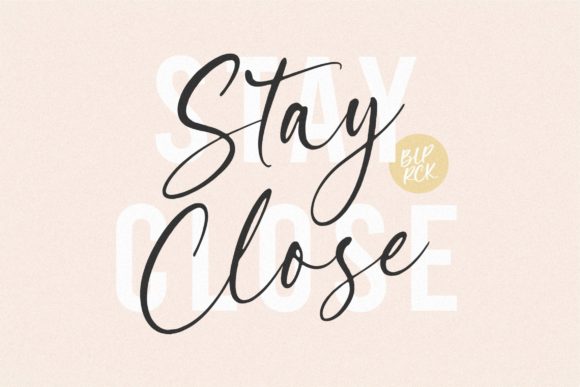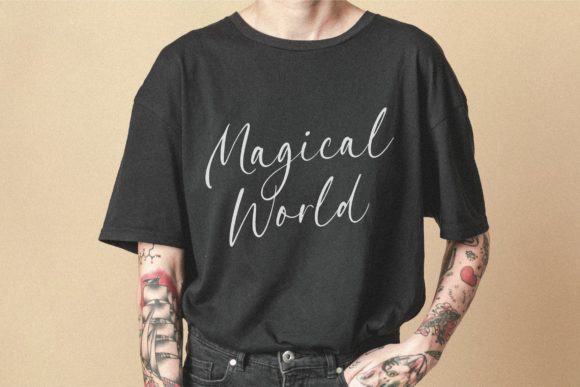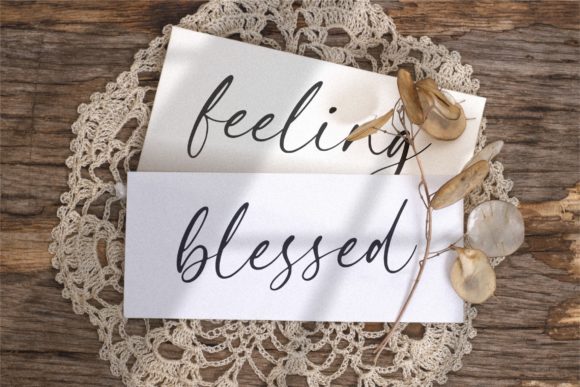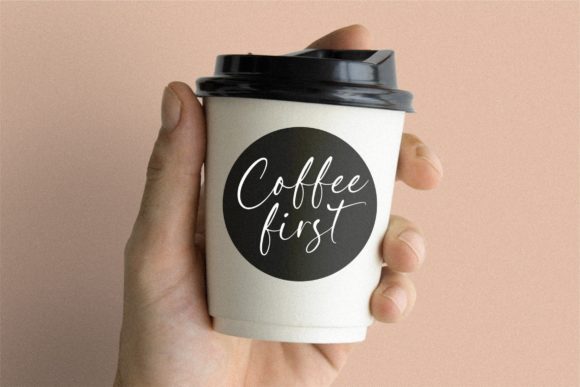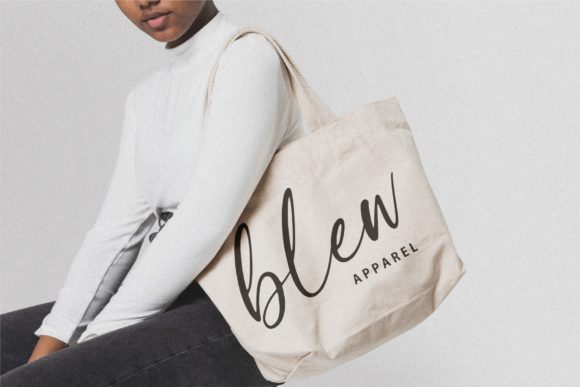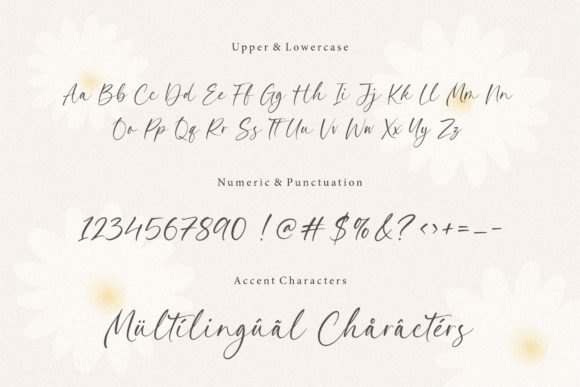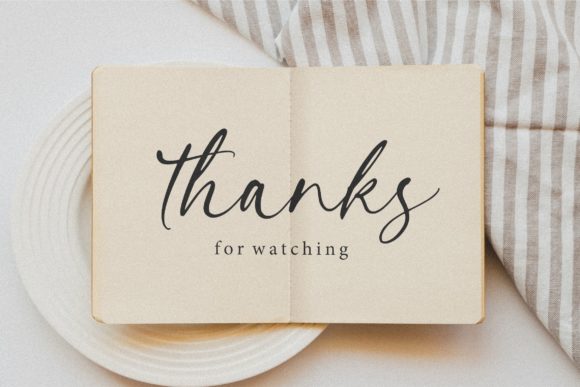
Asterika Font
About Asterika Font
Asterika is a superb handwritten font designed to make your work stand out with its elegant and curvy lines. This versatile font is well-suited for a variety of applications, including product packaging, branding projects, magazine covers, social media, weddings, and more. With its graceful and stylish design, Asterika adds a touch of sophistication to your projects.
In product packaging, Asterika’s elegant and curvy lines contribute to a modern and visually appealing design. The font’s stylish strokes can enhance the overall aesthetic of the packaging, creating a distinctive and memorable look that captures attention.
For branding projects, Asterika’s superb handwritten style can be used to create logos, headlines, or other elements that convey a sense of modernity and sophistication. The font’s elegant lines add a touch of uniqueness, making your brand stand out with a stylish flair.
In magazine covers and social media graphics, Asterika’s distinctive and curvy design offers a contemporary and stylish typography choice. Whether used for headlines, captions, or quotes, the font adds a touch of elegance to your visual content.
For wedding-related designs or any project that requires a superb and handwritten touch, Asterika can be applied to invitations, stationery, or other elements, adding a sophisticated and personalized feel.
Whether expressing words against a background or creating a stylish and eye-catching look for various projects, Asterika’s superb handwritten font offers a versatile and elegant option.
In summary, Asterika is more than just a font; it’s a superb handwritten design tool that enhances the visual appeal of your projects. Whether applied to product packaging, branding, magazine covers, social media, weddings, or other design contexts, Asterika brings an elegant and distinctive touch to your typography.